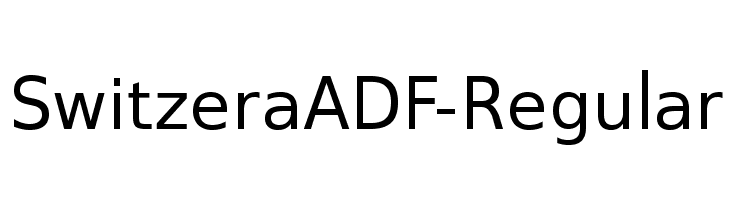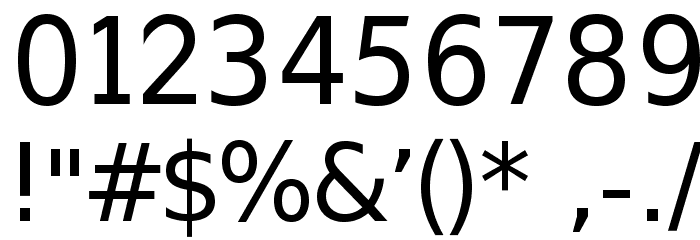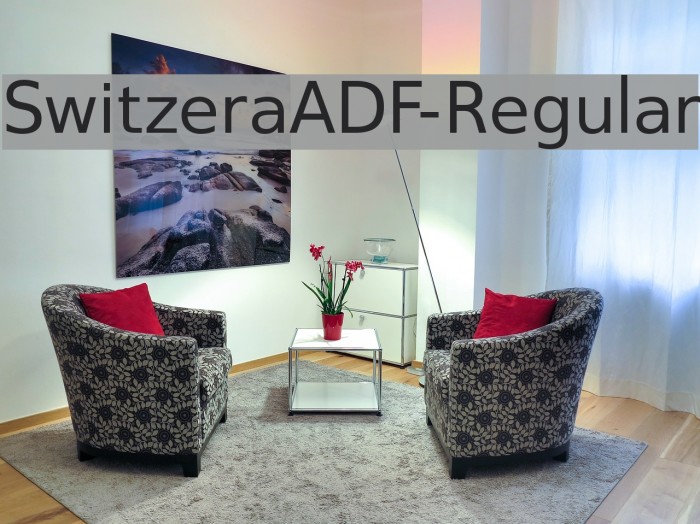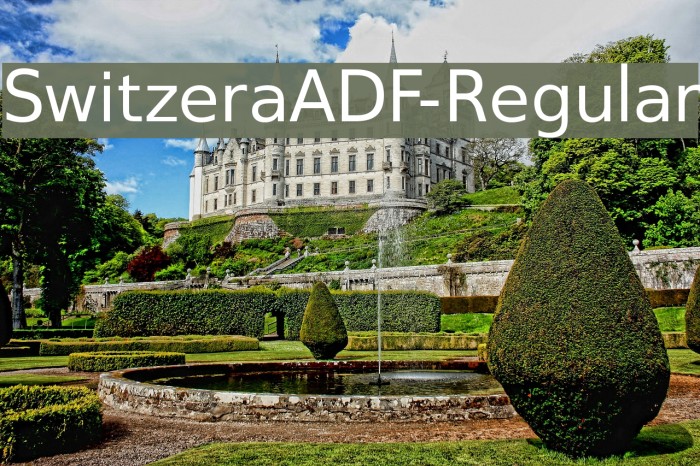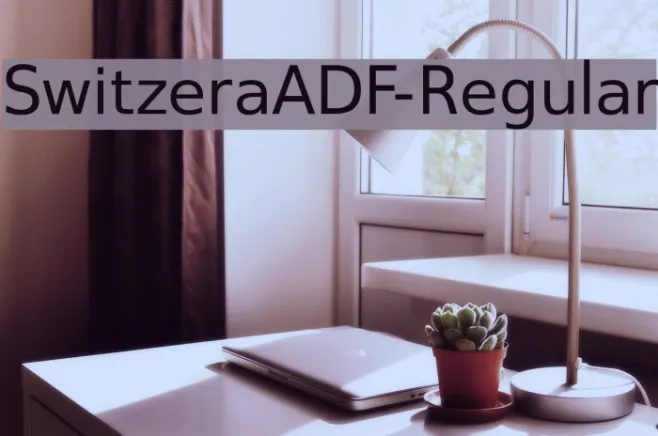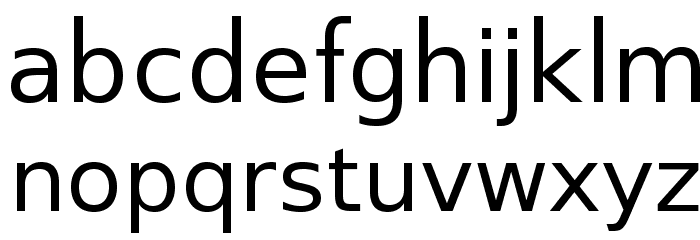
SwitzeraADF-Regular Font
SwitzeraADF-Regular Description
This font features a clean and modern sans-serif design with a focus on readability and simplicity. The characters are well-proportioned, with a consistent stroke width that gives it a uniform appearance. The uppercase letters are bold and assertive, while the lowercase letters maintain a friendly and approachable look. The numerals are clear and easy to distinguish, making them suitable for various applications. Special characters are designed with precision, ensuring they blend seamlessly with the rest of the typeface. Overall, this font exudes a contemporary feel, making it versatile for both digital and print media.
| Use Case | Headlines, Body text, Logos |
| Proposed Projects | Ideal for branding, web design, corporate materials, and editorial layouts. |